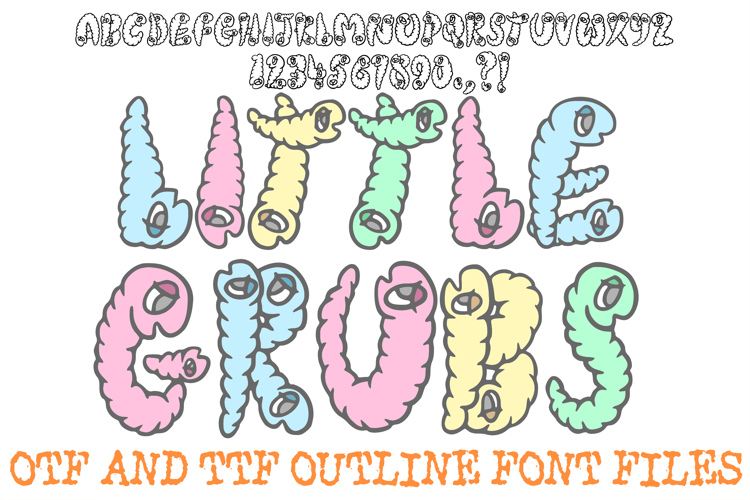
Little Grubs Font Hand Drawn Comic Worm Maggots Lettering
The Little Grubs Font is a squirmy and spirited display typeface that reimagines the alphabet as a collection of fuzzy, segmented larvae and playful maggots. Each character features a distinct "caterpillar-style" body with soft, rounded segments and wide-eyed expressions, making it an adorable choice for nature-themed classroom decor, children’s book illustrations, and garden-inspired branding.
The hand-drawn, organic silhouettes capture a sense of movement and curiosity, as if the maggot-inspired letters are inching across the page. Perfect for teachers, crafters, and designers, this font brings a touch of backyard magic and "creepy-crawly" fun to any creative project.
Expressive Character Design: Every letter (A–Z) and number (0–9) includes large, curious eyes and a segmented body texture for a high-personality look.
Whimsical Nature Aesthetic: The "fuzzy" outlines and flexible shapes provide a unique, illustrative quality that captures the movement of grubs and maggots.
Perfect for Coloring & Customizing: The clean black outline style is ideal for coloring activities, sublimation projects, or layering over bright, earthy colors.
Full Alphanumeric Set: Includes a complete range of uppercase letters, numbers, and playful punctuation like wiggling question marks and exclamation points.